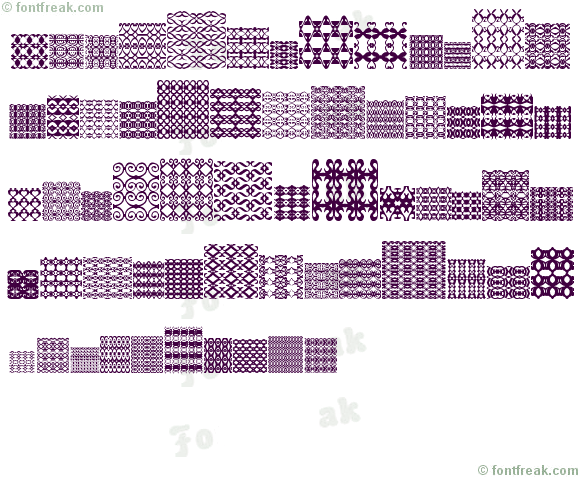
Sl Tiler 2
Introducing the Sl Tiler 2 font by Sharon Loya, a captivating decorative typeface that adds a unique flair to any design project. This freeware font is perfect for non-commercial use, making it an excellent choice for personal projects and artistic explorations. Sl Tiler 2 is characterized by its intricate, geometric patterns that create a visually striking effect. The font features bold strokes and a high contrast between thick and thin elements, giving it a dynamic presence. The spacing is well-balanced, allowing for clarity while retaining its decorative charm.
Sl Tiler 2 is ideal for a variety of creative applications. It can elevate wedding invitations with its elegant design, adding a touch of whimsy that is sure to impress guests. Additionally, this font works wonderfully for movie posters, where its unique shapes can capture attention and convey a sense of intrigue. Restaurant menus can also benefit from the Sl Tiler 2 font, providing an artistic edge that complements gourmet offerings. Graphic designers and content creators will find this font particularly appealing, as it allows for creative freedom and innovation in their work.
The target audience for Sl Tiler 2 includes graphic designers who seek to make a statement with their typography, small business owners looking to enhance their branding, and content creators aiming to add personality to their projects. What sets the Sl Tiler 2 font apart is its ability to blend playfulness with sophistication, making it suitable for both casual and formal designs. With its distinctive style and versatility, the Sl Tiler 2 font free download is an outstanding addition to any designer's toolkit, ready to bring projects to life with its artistic flair.